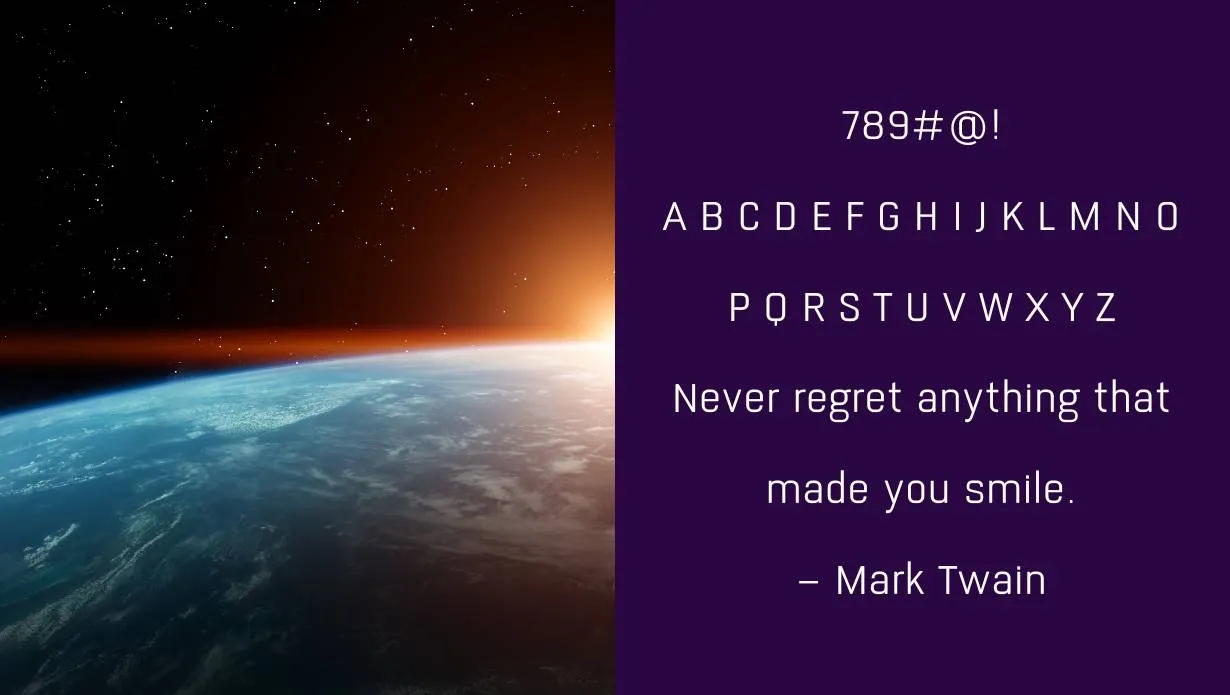
Polar Font is a quirky, sans-serif font with an organic feel that was designed by Daniel Uzquino in 2013. This is a great choice for any project that needs an elegant and unique touch. It’s perfect for logotypes, headlines, and other design work that demands personality.
This font glyph also comprised uppercase, lowercase, punctuations, numerals, ligatures, swashes, and many other characters. This typeface style is also largely useable in the font industry due to its copy-paste ability.
Polar Font Family